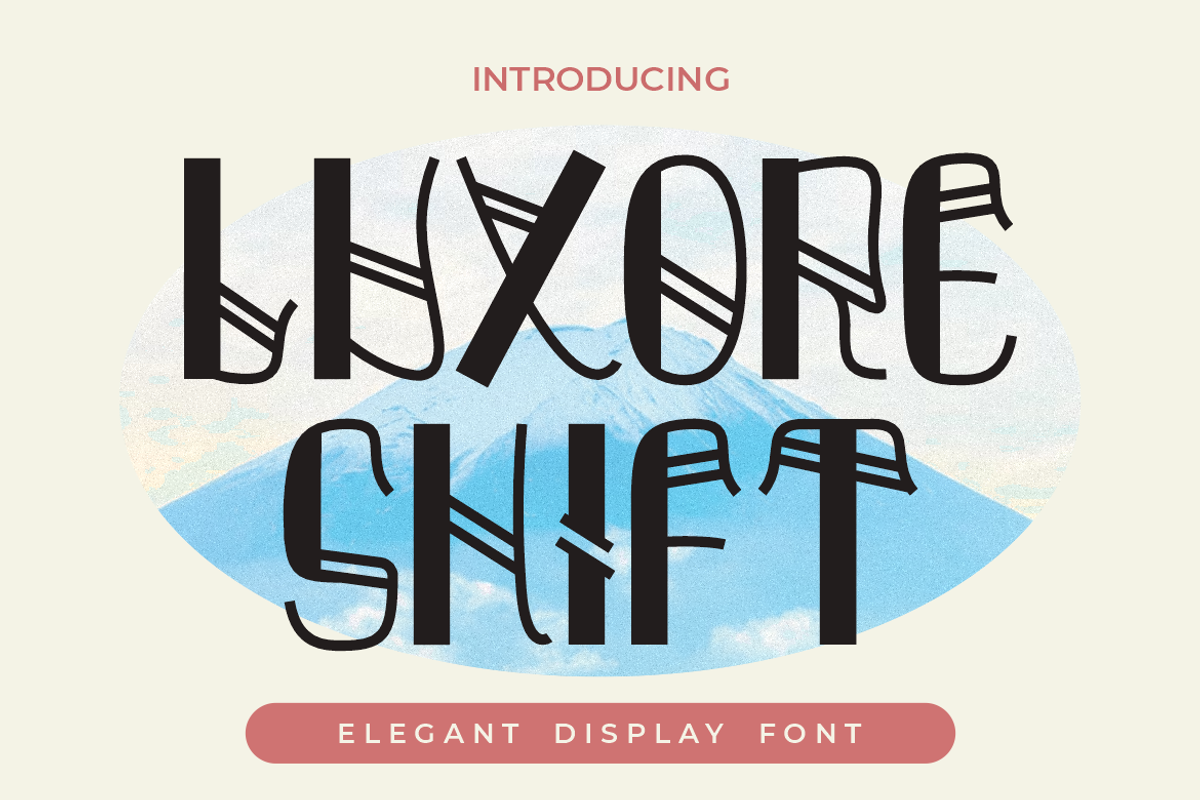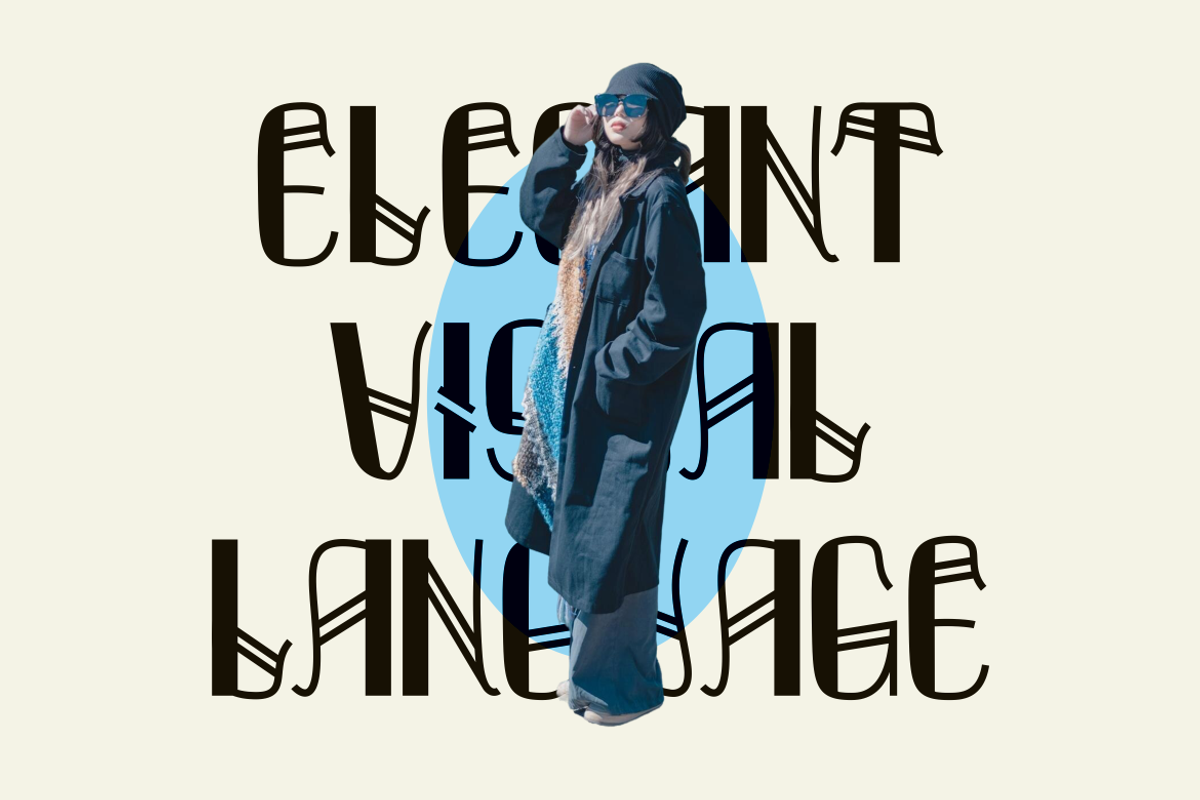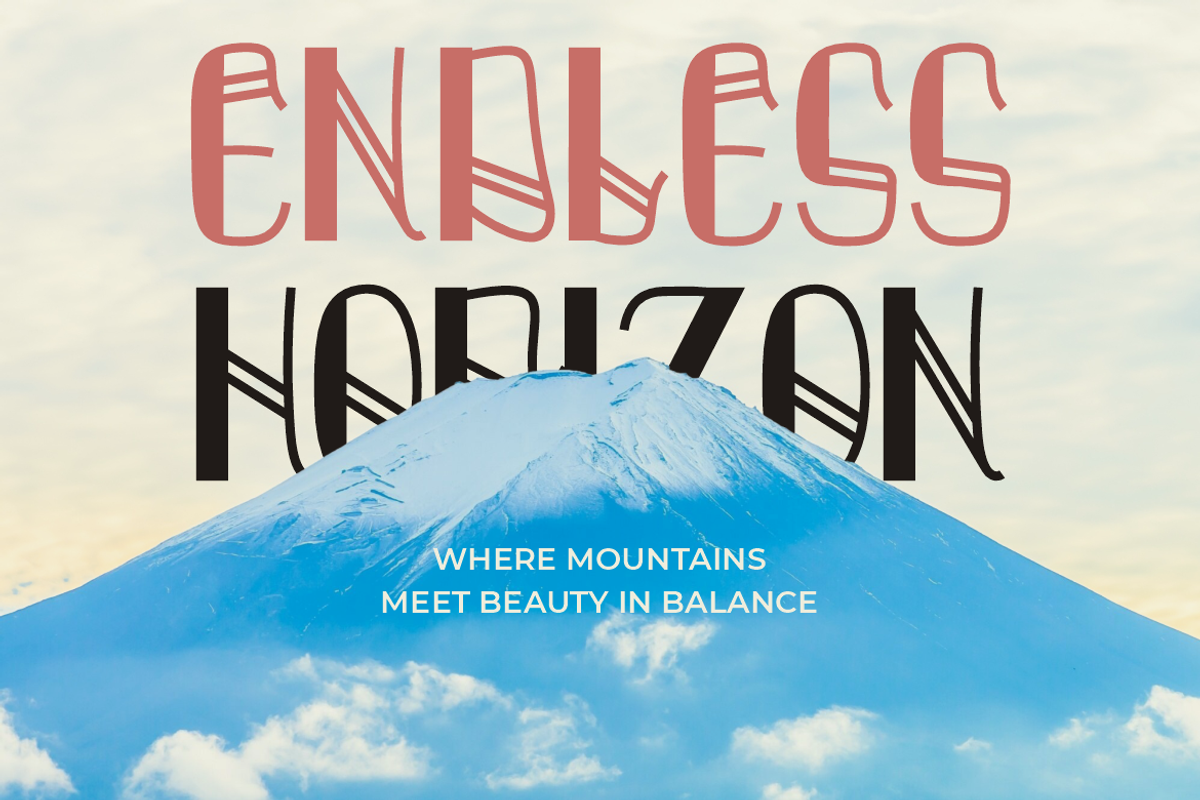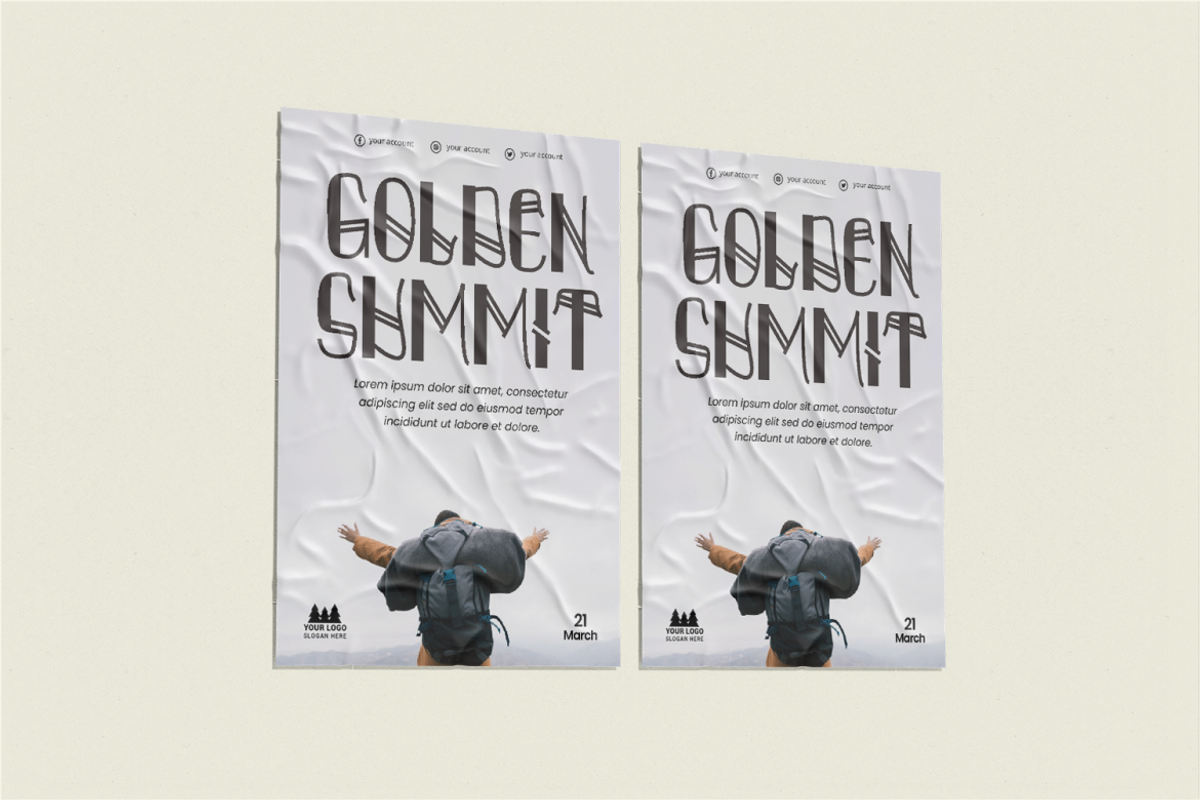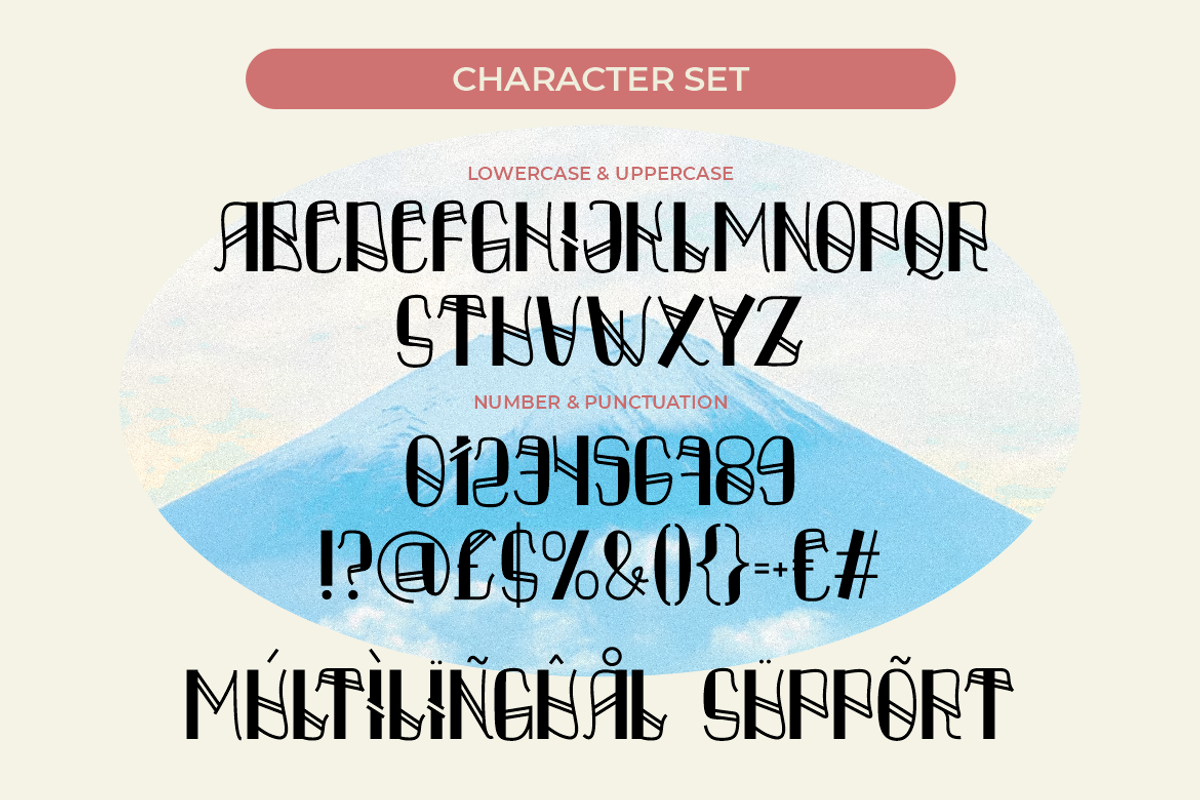
Luxore Shift - Display Font
Luxore Shift – Display Font blends elegance with architectural precision, delivering a high-fashion visual language for premium design needs. Each letterform features a sleek modern structure, subtly embellished with sophisticated line overlaps that mimic ribbon folds or fine embroidery. This luxurious typeface offers a distinctive and upscale character, making it perfect for premium branding, editorial layouts, fashion covers, or exclusive product packaging. The alternation of thick and thin strokes enhances readability while still offering a unique flair that feels curated and refined.
From logo design to magazine spreads, Luxore Shift projects elegance and confidence with every glyph. The font includes a complete set of uppercase characters, numbers, punctuation, and multilingual support, all meticulously designed to maintain harmony in every layout. Ideal for upscale packaging, boutique invitations, or visual identity projects, this display font adds modern class and balance to your typographic compositions.